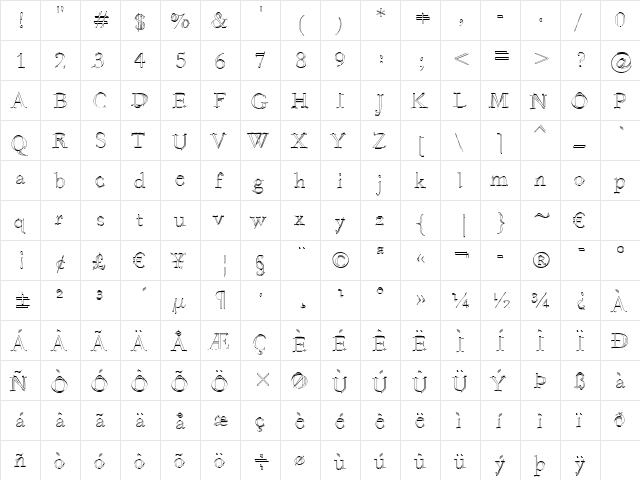
Rina Linea BT Roman
Design Context for Rina Linea BT Typeface
Rina Linea BT is a composed and adaptable typeface that performs quietly and consistently across a wide range of design contexts.